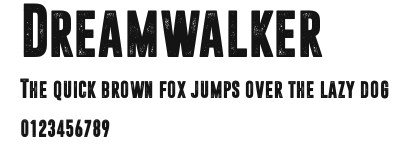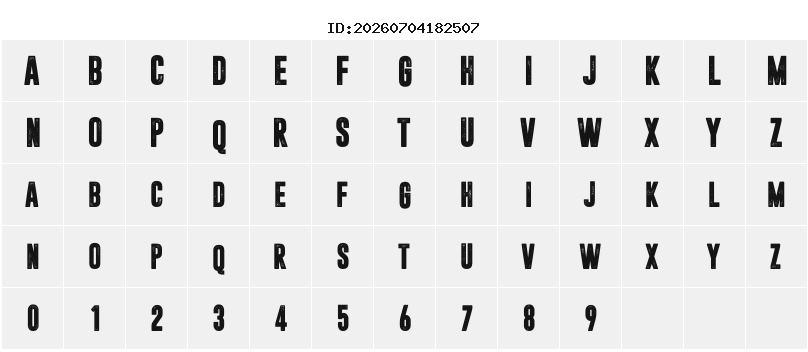
Dreamwalker Preview
• Font Name: Dreamwalker
• Full Font Name: Dreamwalker
• Designer: The Branded Quotes
About Dreamwalker.otf
Dreamwalker.otf is a modern, elegant sans-serif font designed for ultimate readability and visual harmony. Perfect for branding, headlines, web design, and print materials.